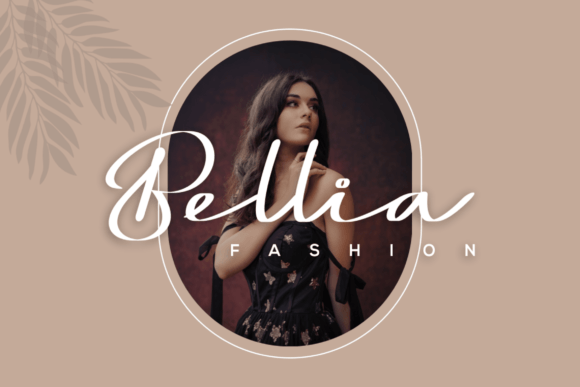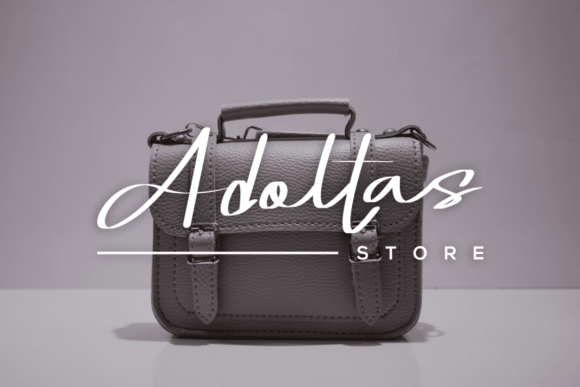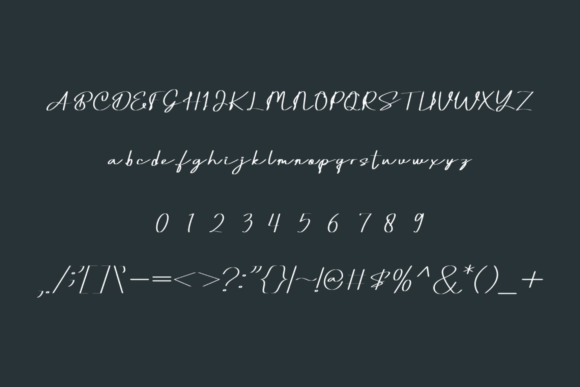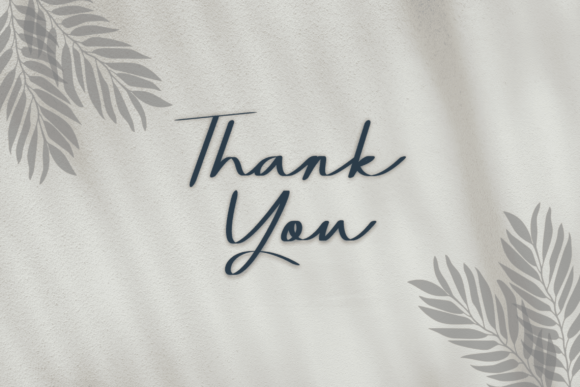
Discover the Timeless Elegance of Dilliva Font
Have you ever found yourself pouring your heart into a design project, only to be halted by the perfect font? For many creatives, the search for the perfect font is a familiar and frustrating experience. But what if I told you that there’s a font that can elevate your designs with effortless elegance? Enter Dilliva Font, a delicate and flowing handwritten font that’s as versatile as it is beautiful.
As a designer, you know how crucial it is to find a font that complements your vision without overpowering it. Dilliva Font is that perfect balance of style and subtlety, making it an invaluable addition to any design toolkit. With its well-balanced characters and flowing lines, this font is sure to bring a touch of sophistication to your next project.
Dilliva Font Key Features
- Unique Characteristics: Dilliva Font features a unique blend of modern and vintage elements, making it perfect for designers looking for a distinctive and eye-catching font.
- Font Style: Dilliva Font is available in a single font style, but it includes various ligatures, swashes, and ornaments that can be used to add flair and personality to your designs.
Dilliva Font Review
I recently had the chance to work with the Dilliva Font, and I have to say, it’s a mixed bag. On the one hand, there are some things that I really like about it. ✨ The font is super versatile and can be used in a variety of settings, from formal to casual. It’s also very legible, even at smaller font sizes. The font’s unique flair is a nice touch, adding a bit of personality to any design.✨
On the other hand, there are some limitations that I think need to be considered. ⚠️ For one, the font can be a bit overused. I’ve seen it used in a lot of different projects, which makes it feel a bit tired. Additionally, the font doesn’t work particularly well in all caps. The uppercase letters can feel a bit clunky and awkward. ⚠️
Overall, I think the Dilliva Font is a solid choice for designers who want a versatile, easy-to-read font. However, it may not be the best choice for projects that require a lot of creativity or uniqueness. With a bit of caution and consideration, though, it can be a great addition to any design.
- ✨ Works well in a variety of settings
- ✨ Very legible, even at smaller font sizes
- ⚠️ Can feel overused
- ⚠️ Doesn’t work well in all caps